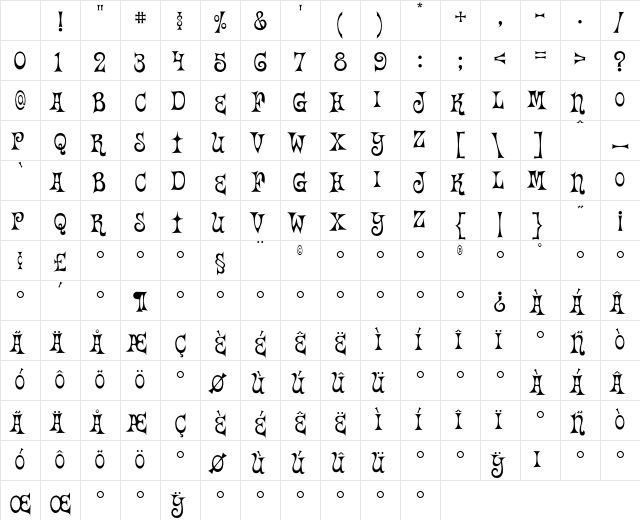
Complete Vantasyhouse Regular glyph index. Displaying only characters natively supported by Vantasyhouse Regular font.
Vantasyhouse is a composed and adaptable typeface that performs quietly and consistently across a wide range of design contexts.